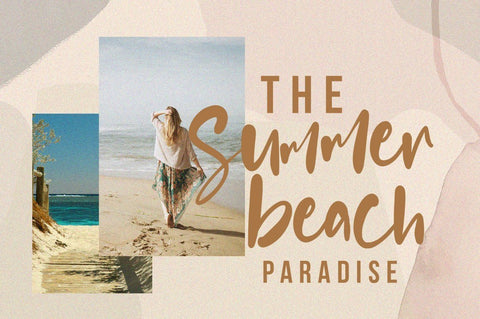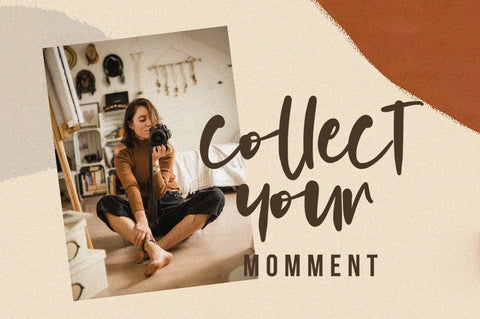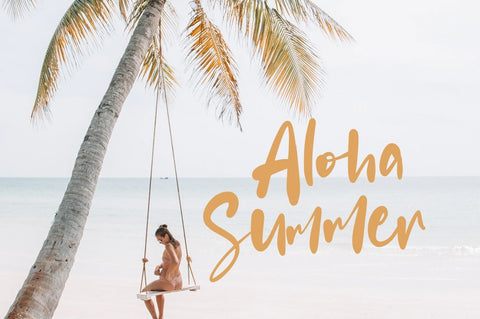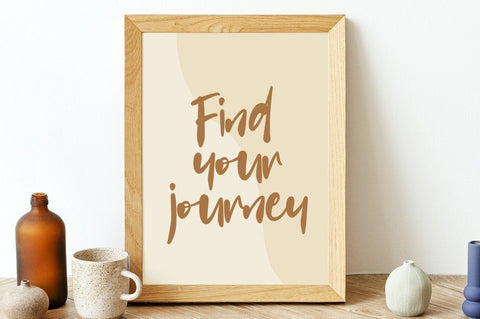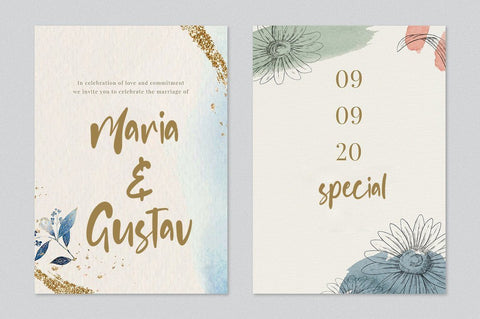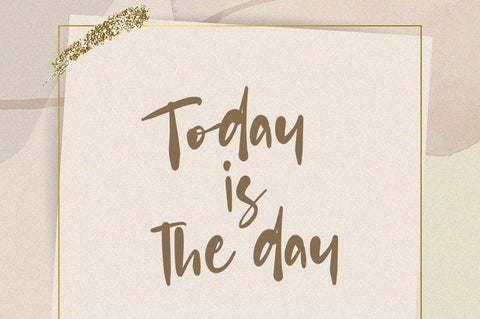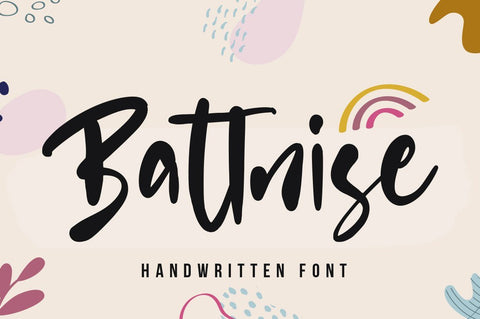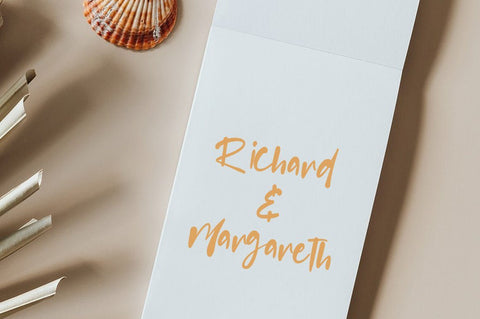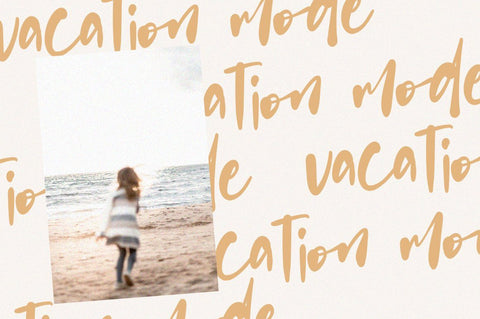
Battnise - Brush Font
Battnise is an authentic brush font. Clean and a little bit quirky, this font is the perfect fit for all of your logos, branding, social media, and crafty DIY projects.
Font Features :
- Uppercase + Lowercase Letters
- Numbers + Punctuation
- Ligature Feature
- OpenType features
- Multilingual support